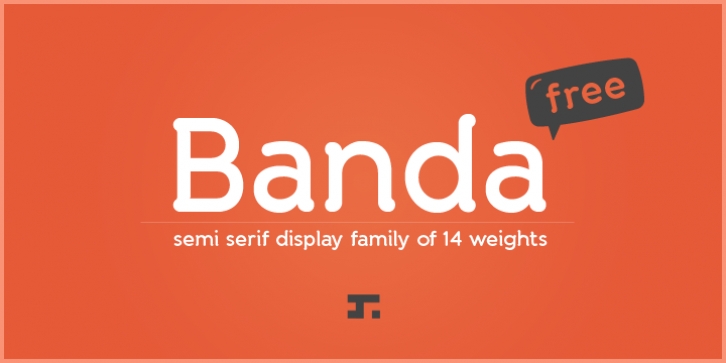
Banda was designed by Alexander Nedelev, Veronika Slavova and published by Typedepot. Banda contains 14 styles and family package options.
Banda is a semi-serif typeface characterized by a tall x-height and rounded semi-serifs. Although it was first designed as a display typeface, Banda quickly evolved into more complex type consisting of seven weights plus their respectful italics.
Banda can be used for short passages of text as well as a fancy display type. Varying from the elegant and finesse, thinner weights to the almost childish bubbliness of the heavier weights, Banda is a great all-round performer suitable for logos, headlines, package & food designs & much more.